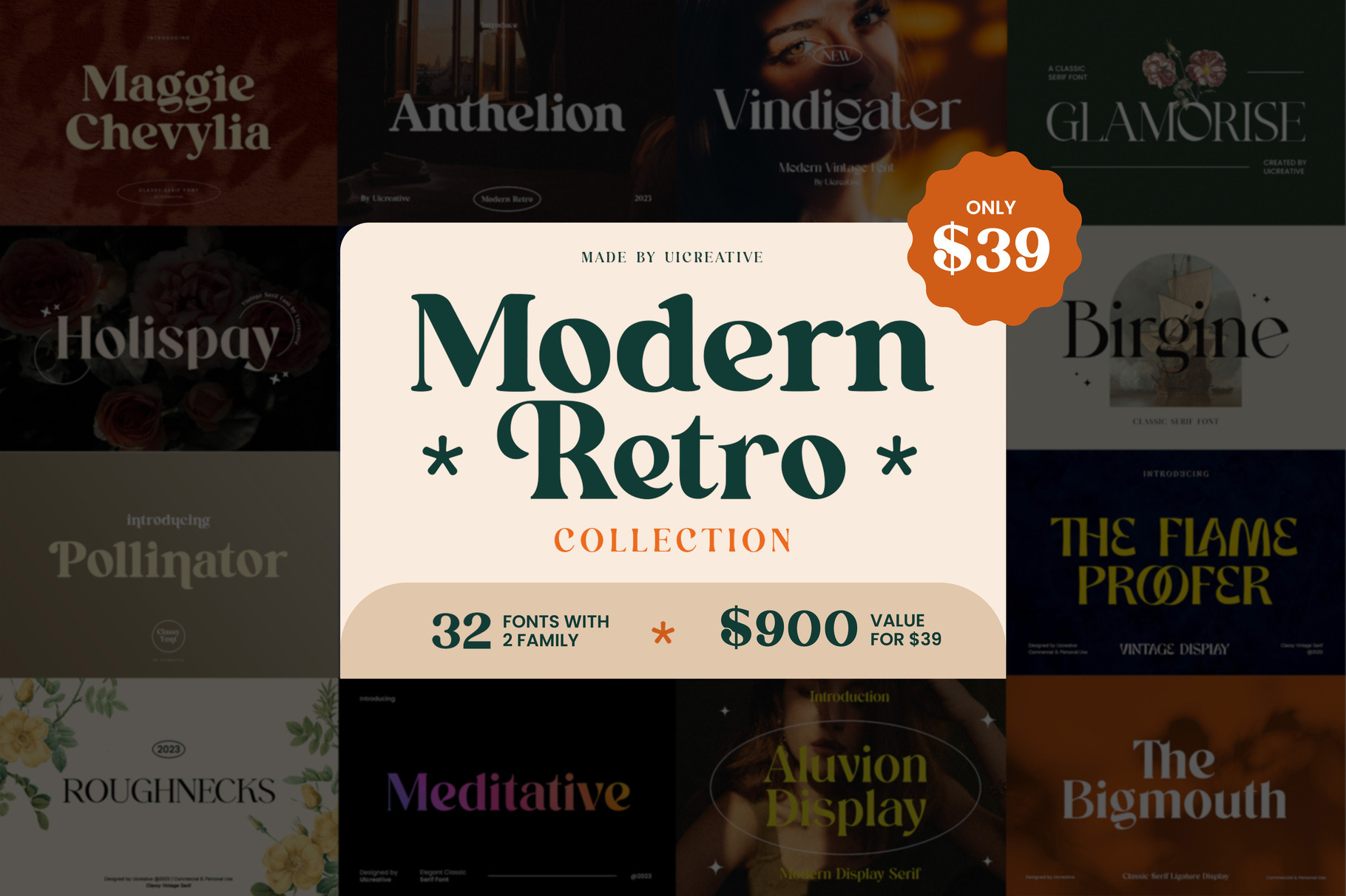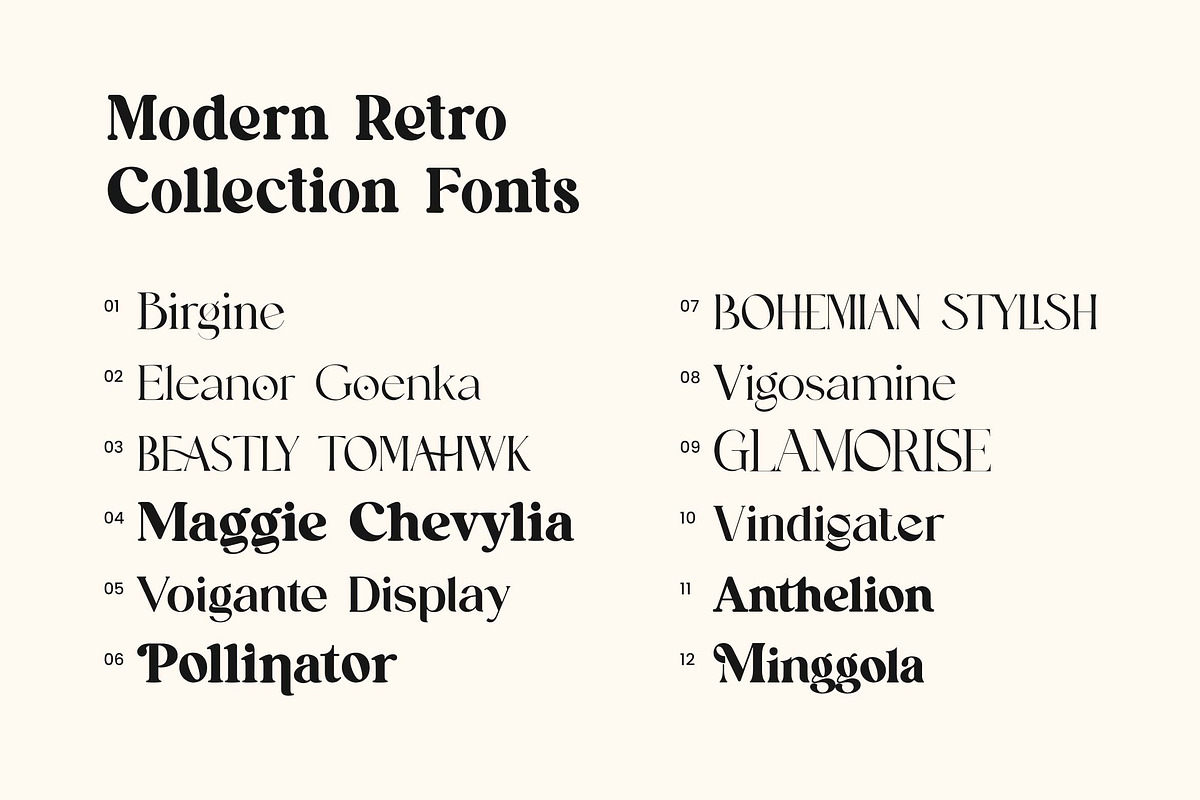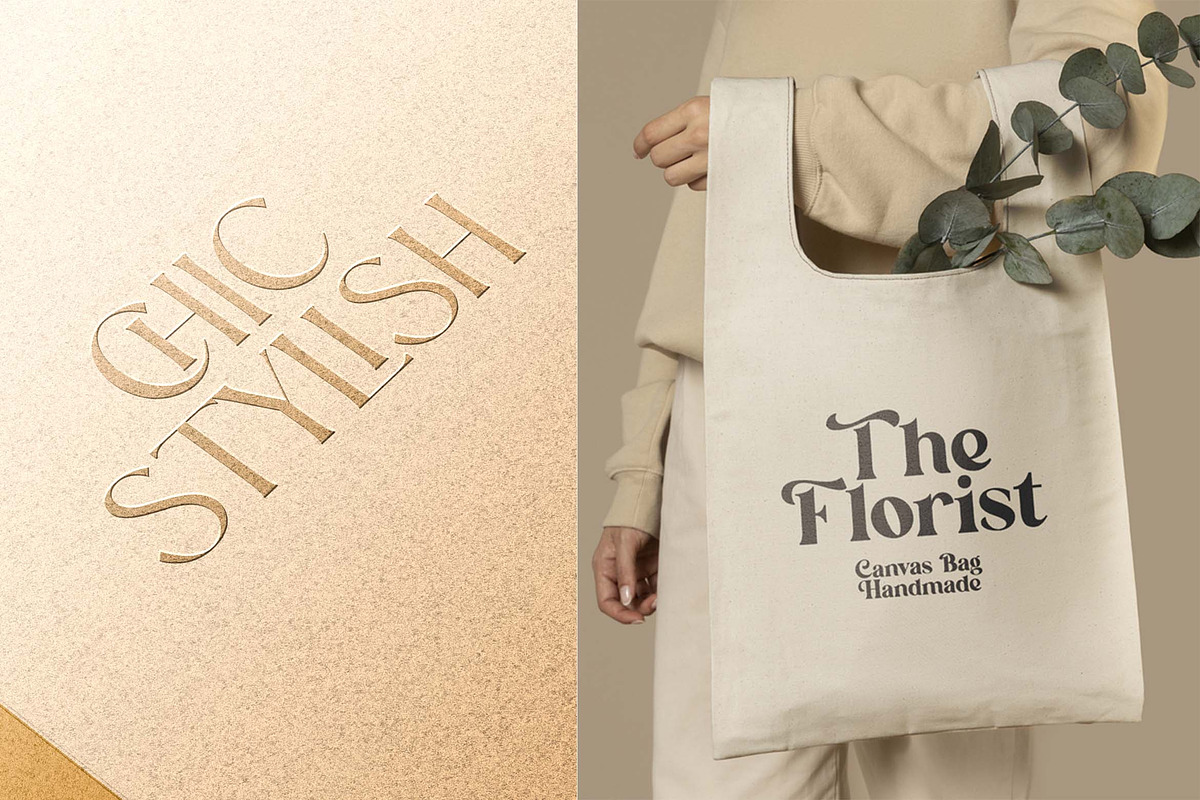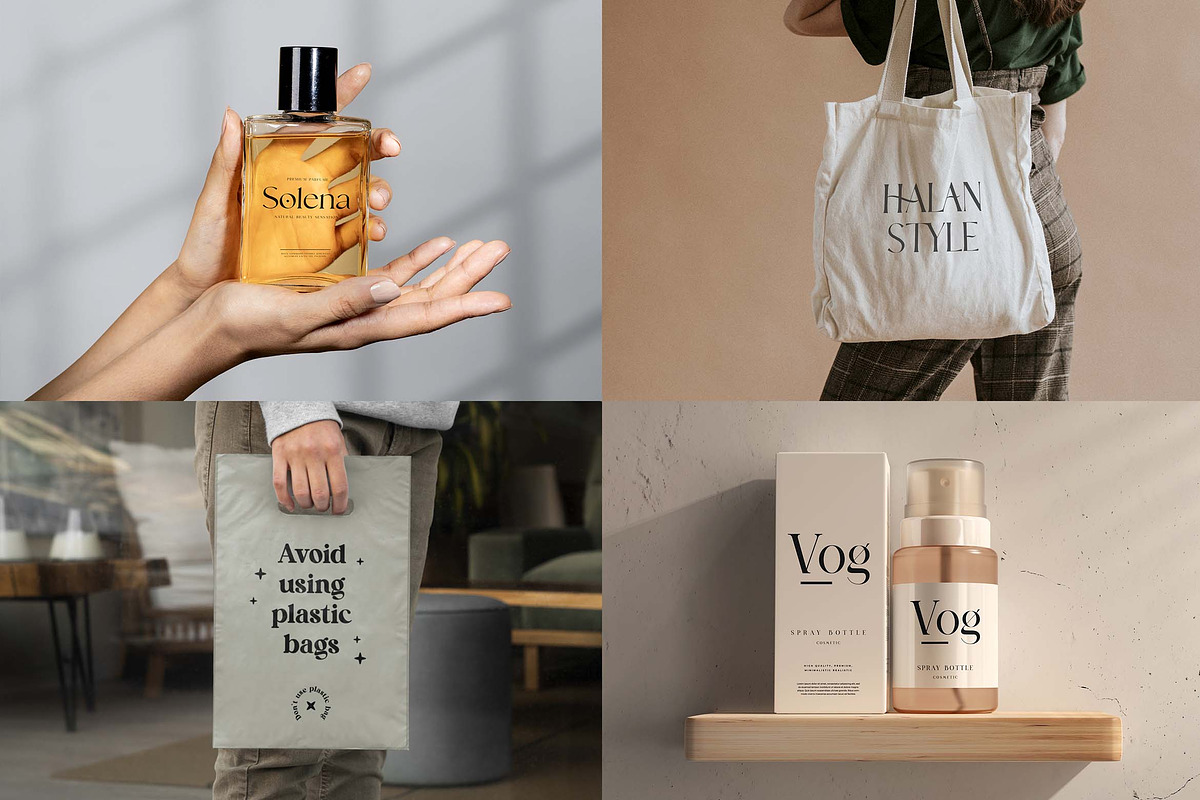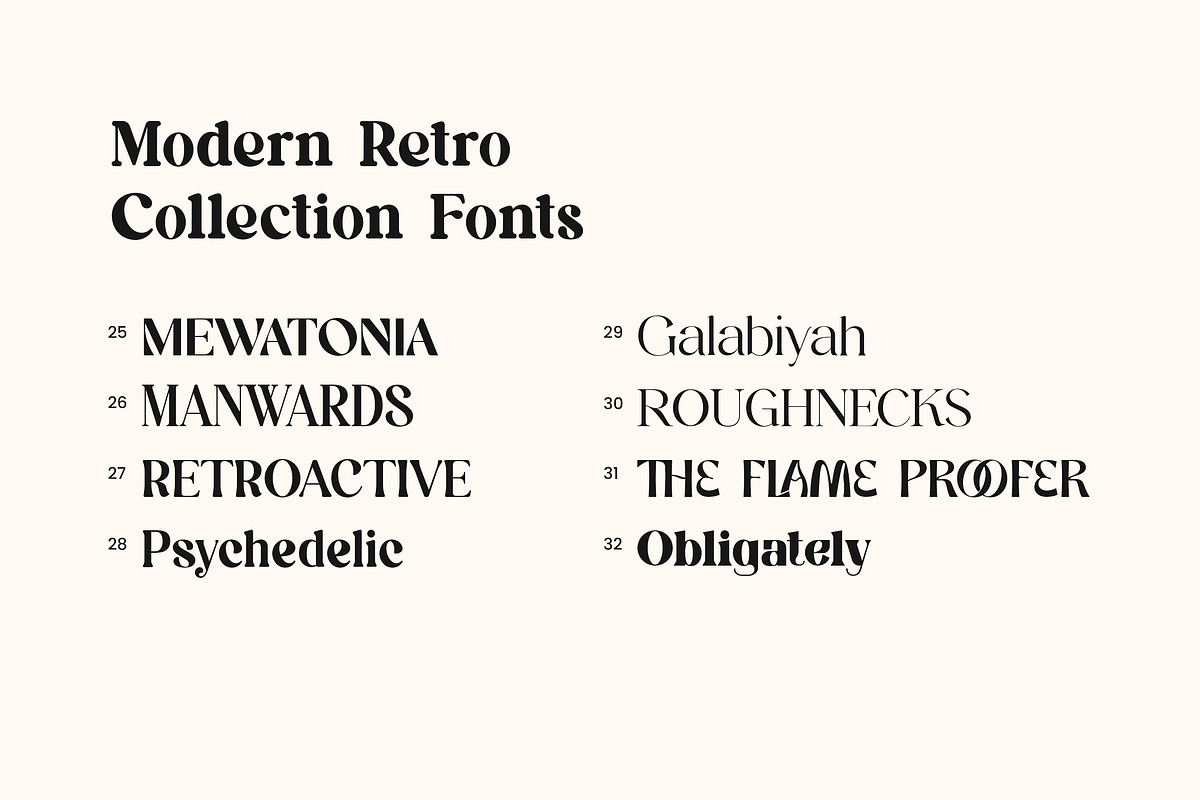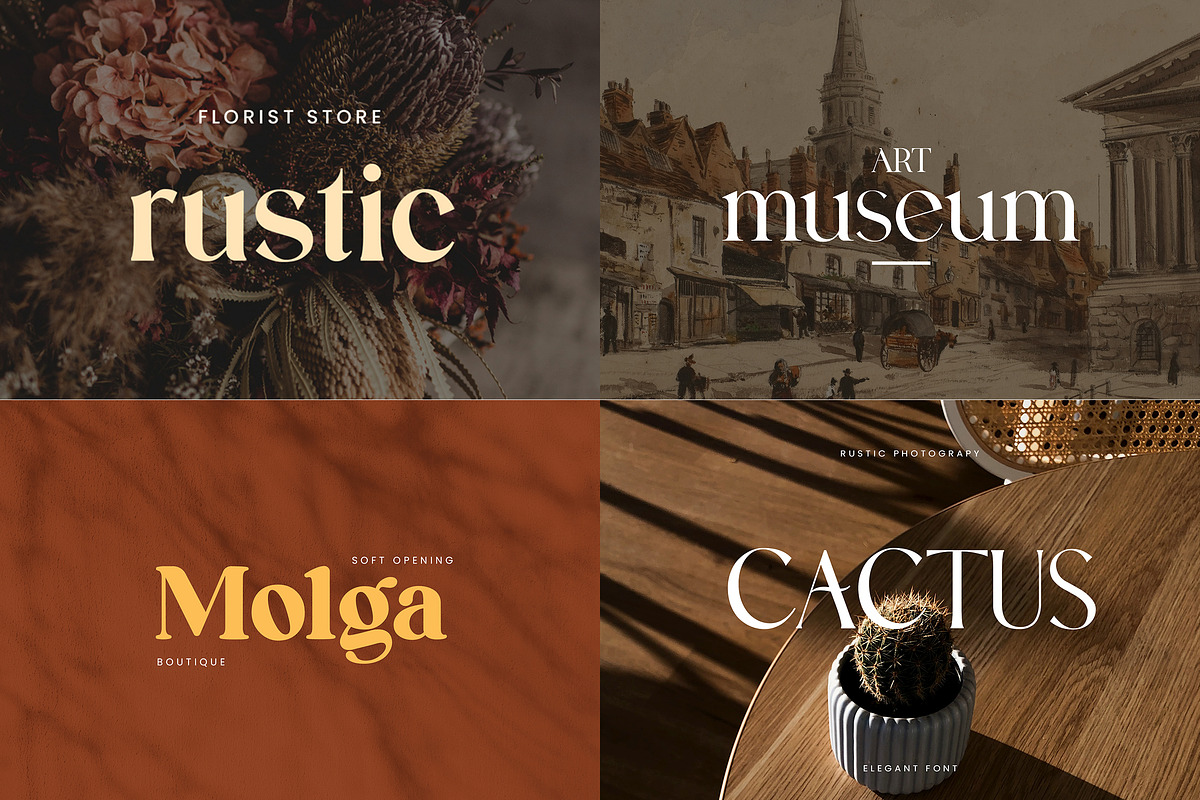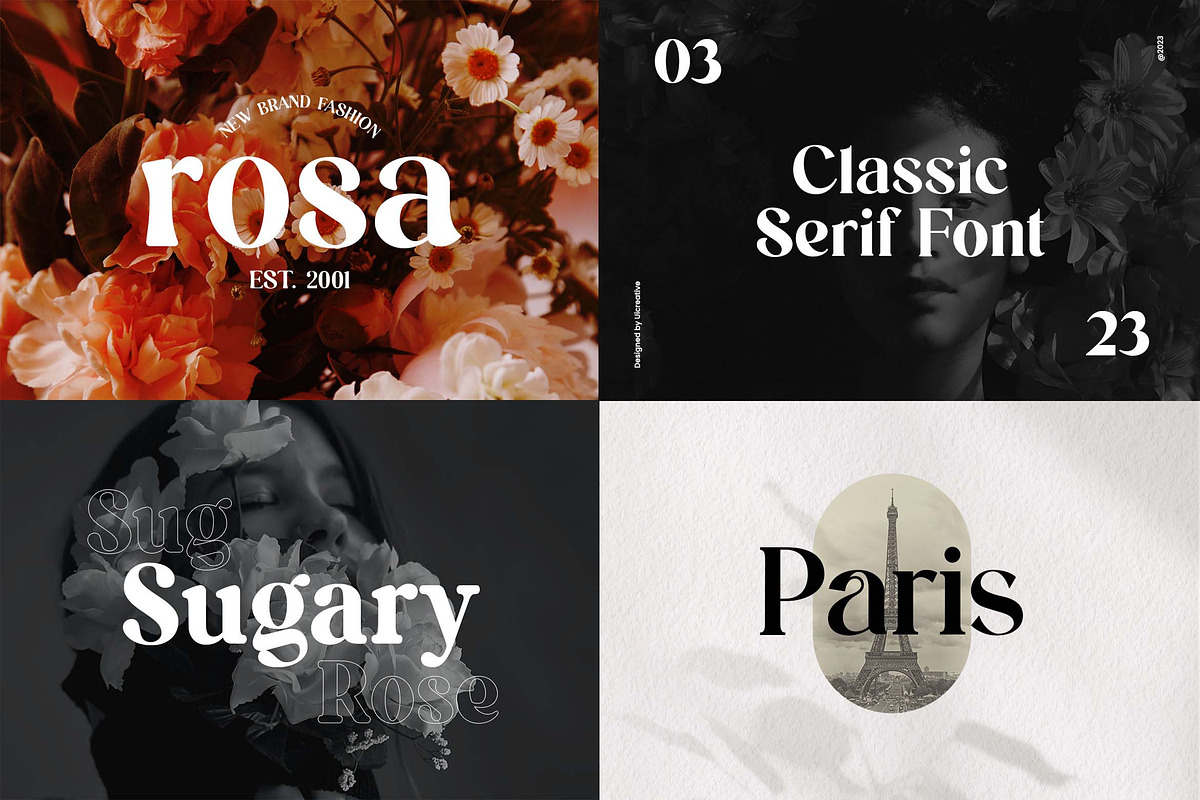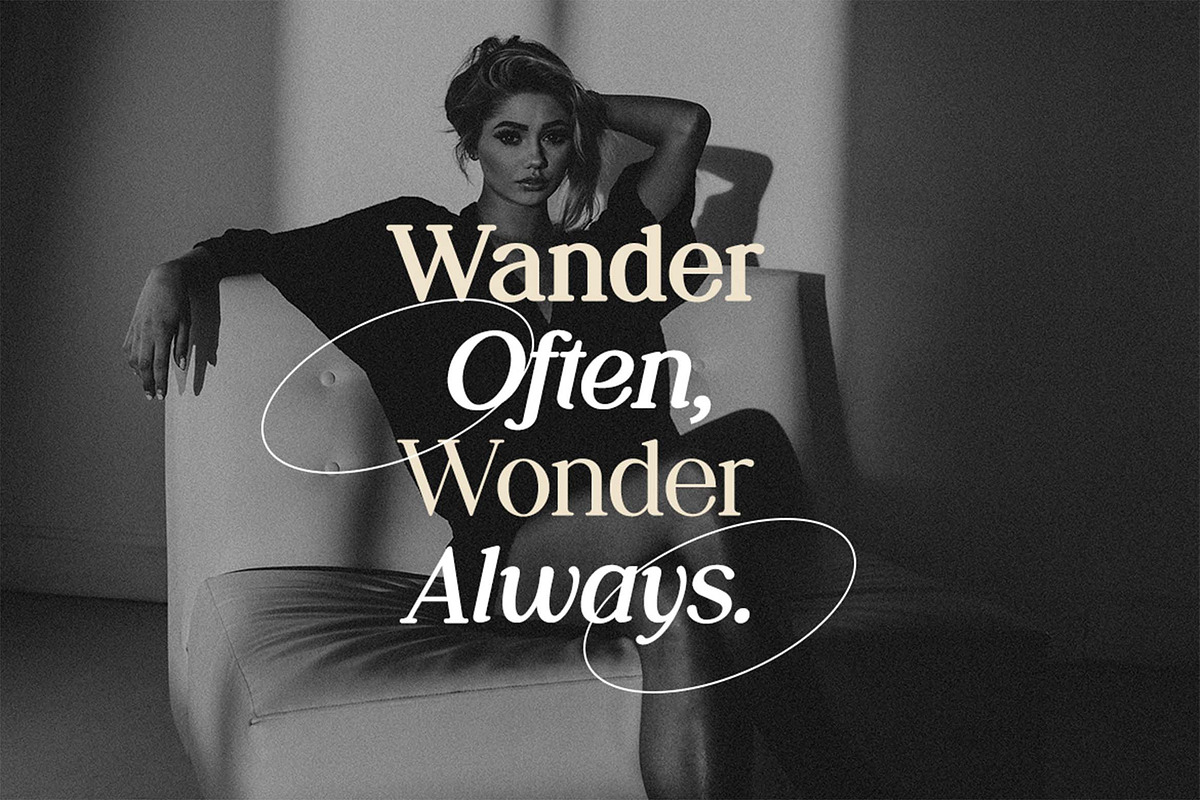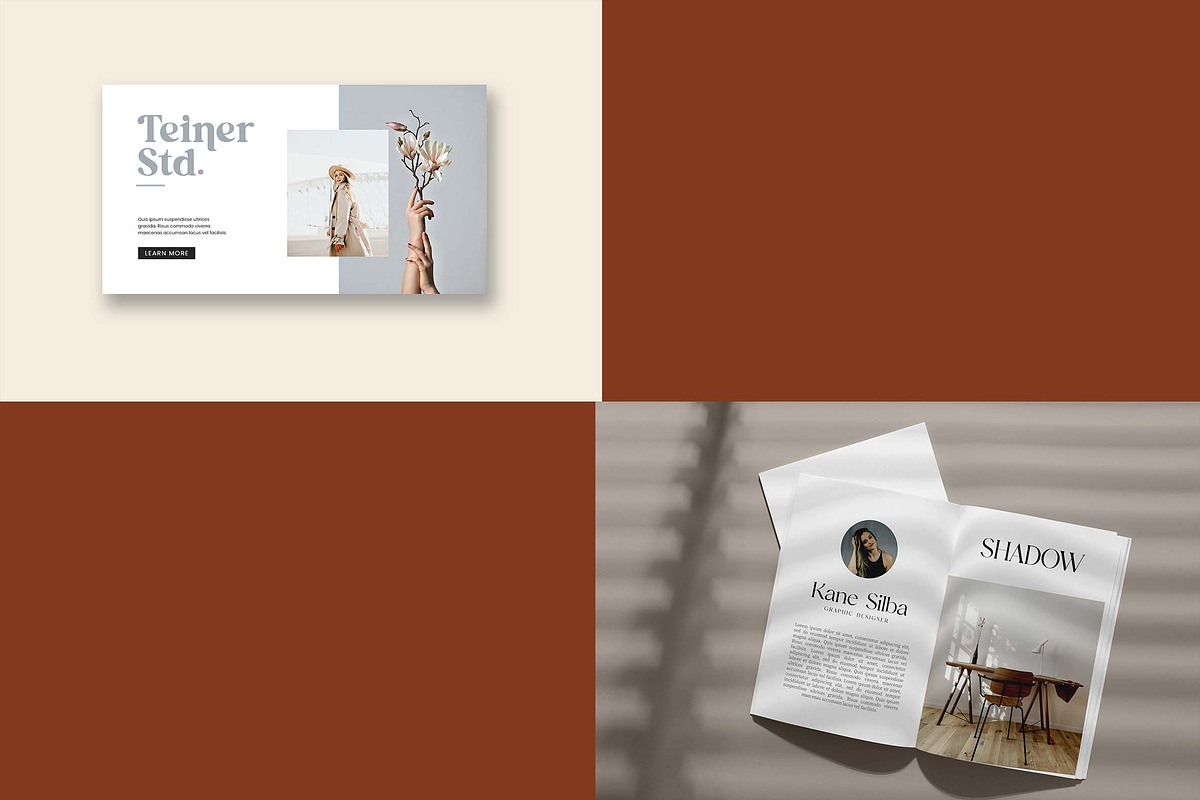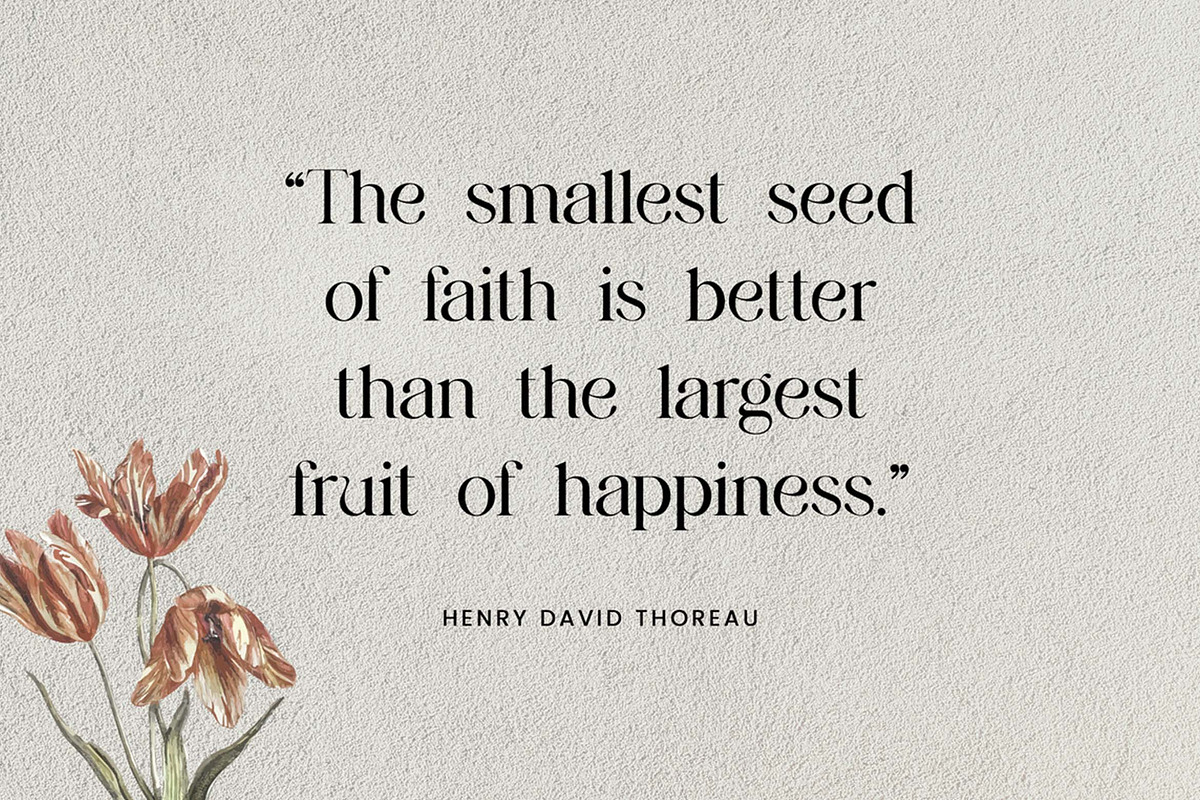
Modern Retro Font Bundles
Step back in time with our modern retro font bundles! This collection of fonts has been meticulously crafted to capture the timeless essence of the past, while still maintaining a fresh and contemporary feel. Each letterform is a work of art, embodying the mid-century modern aesthetic that has become so popular in recent years. Perfect for graphic designers, hobbyists, or anyone looking to add a touch of retro flair to their projects.